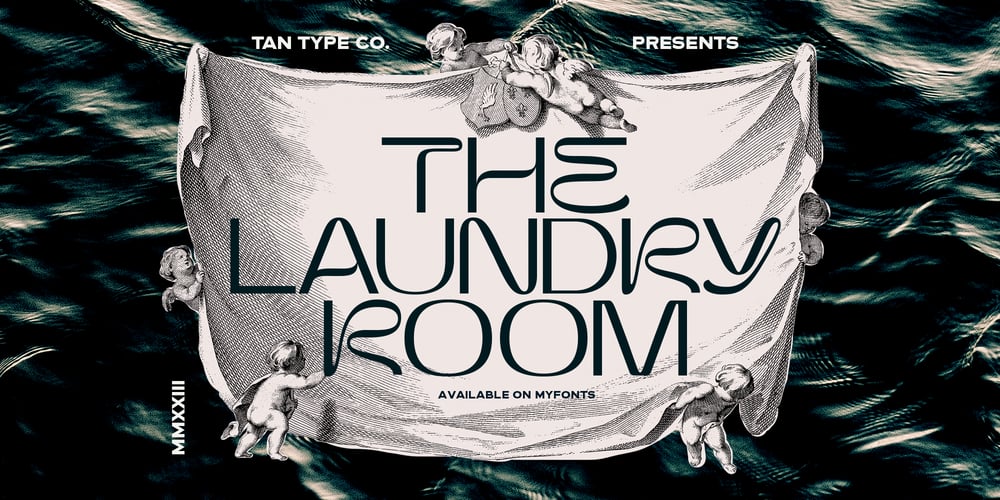
TAN The Laundry Room Font Family was designed by Novia Jonatan and published by TANTypeCo.. TAN The Laundry Room contains 1 styles and family package options. TAN – THE LAUNDRY ROOM is a fun display serif. Wonky yet composed and retains the legibility.*the italic font used in the display is TAN – ANGLETON (italic)—Our fonts are supported by most design software, please make sure it can read the OpenType fonts to be able to access all ligatures. Please be informed that while our font works well in Canva, but Canva itself doesn’t support advance opentype features such as special characters.For support, please don’t hesitate to contact us at tantypeco@gmail.com.